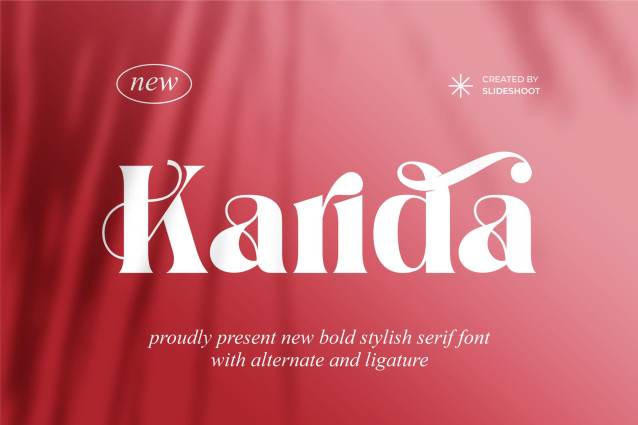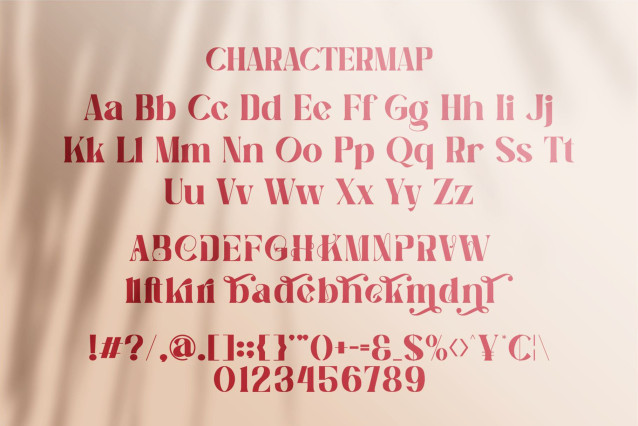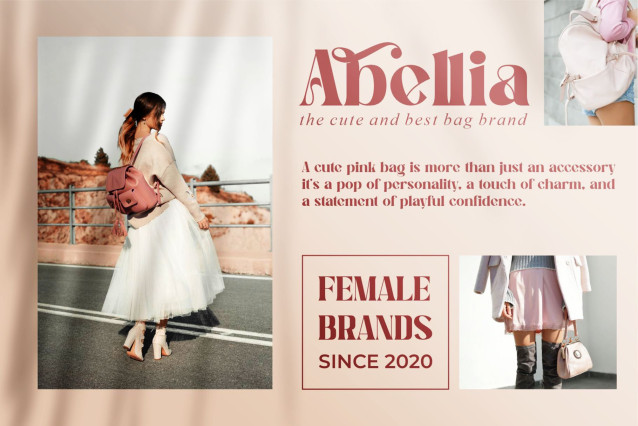
Karida Font
Karida Font is bold serif font, trendy, bouncy and cute display font. It has a unique character with wood theme. It is perfect to be combined with invitation card designs, company logos, movie titles, movie names, business cards, book titles, brand names and various other designs.